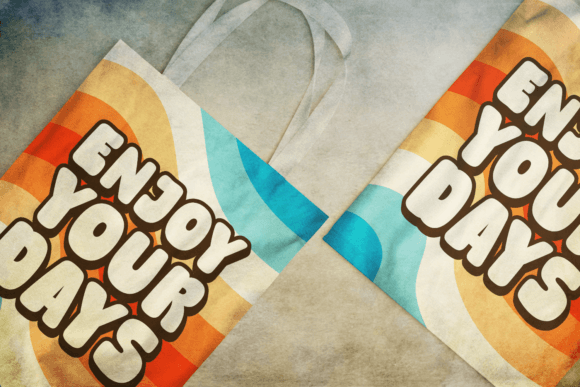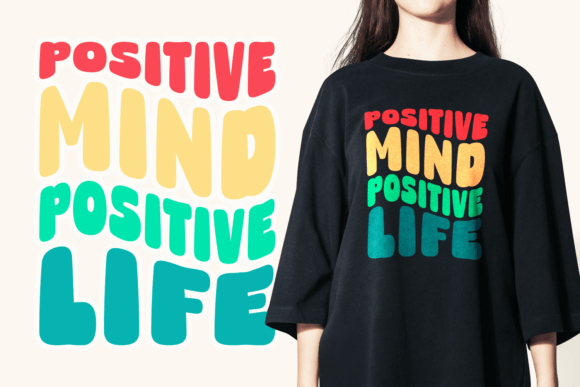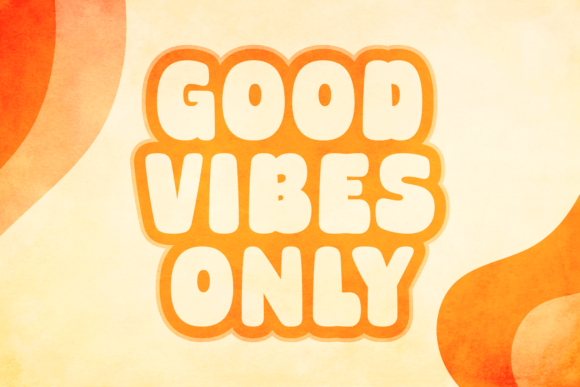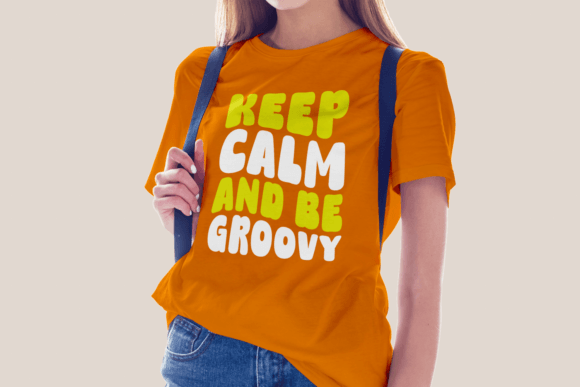
Adding a Touch of Retro Charm to Your Designs
Do you ever get that moment where you’re working on a project and you just can’t seem to find the right font to tie everything together? The words aren’t flowing, the layout is bland, and you’re stuck in a design rut. That’s when the magic happens, and you stumble upon the perfect font to elevate your entire project. For designers, finding that perfect font can be a game-changer.
Enter the Glory Retro Font, a thick and versatile display font that’s sure to add a fun, retro-style look to any project. This chubby set of characters is perfect for a wide range of designs, from posters and advertisements to websites and social media graphics. The Glory Retro Font is a valuable addition to any designer’s toolkit, offering endless possibilities for creativity and self-expression.
Glory Retro Font Key Features
- Font Family: A unique and nostalgic font family that captures the essence of the 80s and 90s.
- Unique Characteristics: Features a distressed, retro aesthetic with subtle texture and imperfections, adding a touch of nostalgia to any design.
Glory Retro Font Review
I recently had the chance to work with the “Glory Retro Font” and I must say it’s a unique addition to any design project. ✨ Here are some of the things I like about it:
- The font’s nostalgic vibe is perfect for projects that require a vintage or retro feel.
- The font is highly customizable, allowing you to adjust the spacing, alignment, and size to suit your needs.
- The font is well-suited for use in logos, headings, and other prominent design elements.
However, there are a few limitations to consider: ⚠️
- The font may not be as readable at smaller font sizes, which could be a concern for projects where text is a key element.
- The font’s unique design may not be suitable for all types of projects, particularly those that require a more modern or minimalist aesthetic.
- The font is not as widely supported as some other fonts, which could lead to compatibility issues in certain environments.
Overall, I think the “Glory Retro Font” is a great choice for projects that require a nostalgic or vintage feel. While it may have some limitations, its unique design and high level of customizability make it a great option for designers looking to add some visual interest to their projects.
The Glory Retro Font is ideal for creating vintage-inspired designs, such as:
- Retro-style posters and flyers
- Vintage-themed websites and social media graphics
- Old-school-inspired advertisements and marketing materials
For optimal results, pair the Glory Retro Font with complementary colors and textures to create a cohesive and nostalgic look.
Alternatives to Glory Retro Font for Designers
The Great Vibes Font is a beautiful, elegant script font that is perfect for creating a sense of nostalgia and sophistication. It is ideal for use in wedding invitations, branding, and packaging designs. Compared to Glory Retro Font, Great Vibes has a more refined and delicate feel, making it suitable for more formal or high-end designs.
Pacifico is a stylish, cursive font that exudes a sense of relaxation and tranquility. It is perfect for use in beach-themed designs, travel brochures, and advertisements that aim to evoke a sense of calmness. Compared to Glory Retro Font, Pacifico has a more laid-back and casual feel, making it suitable for designs that require a more relaxed atmosphere.
What is the character set for the Glory Retro Font?
The Glory Retro Font includes a wide range of characters, including Latin, Cyrillic, and Greek alphabets, as well as punctuation and symbols. The font also includes a range of ligatures and swashes to add a touch of elegance and sophistication to your designs. Please refer to the font documentation for a full list of supported characters.